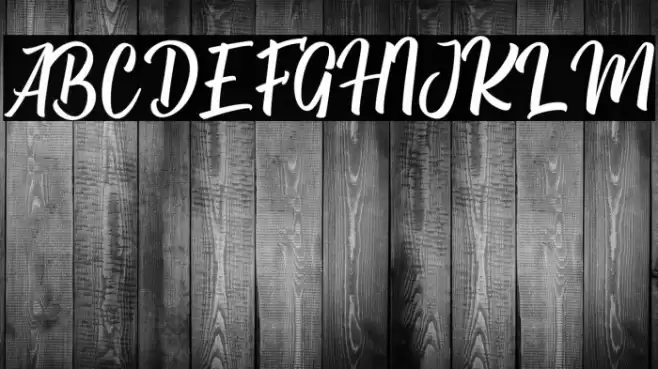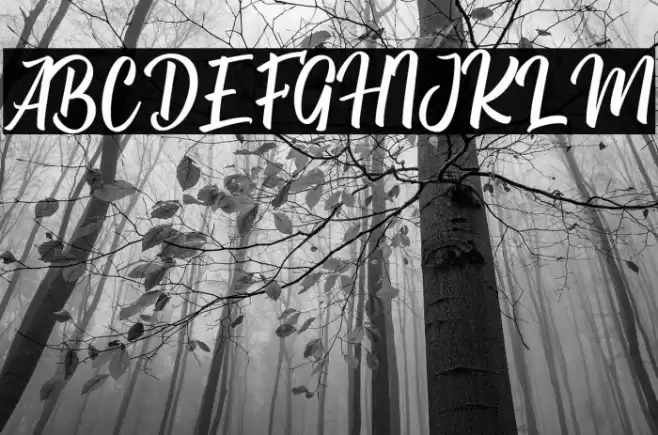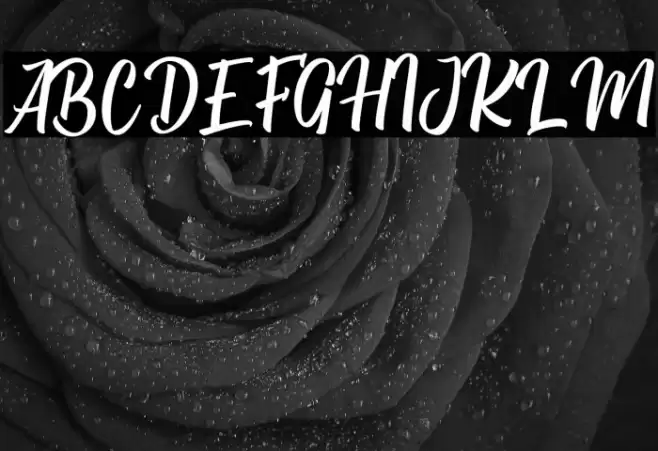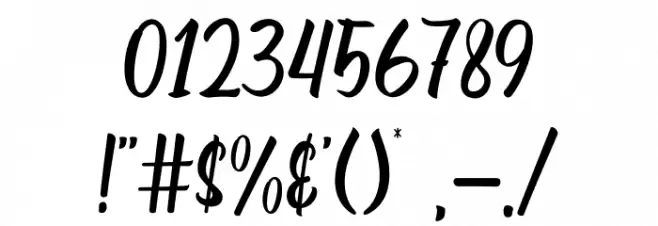
Berkah Ramadhan Font
Berkah Ramadhan Description
This font features a lively and flowing script style, characterized by its smooth, cursive strokes and elegant curves. The uppercase letters are bold and dynamic, with a slight slant that adds a sense of motion and grace. The lowercase letters maintain a consistent flow, connecting seamlessly in a way that enhances readability while preserving the artistic flair. Numbers and special characters are designed to match the overall aesthetic, with a playful yet sophisticated appearance. This font is perfect for projects that require a touch of elegance and personality, such as invitations, branding, and decorative designs.
A lively and elegant script font with smooth, cursive strokes from Uncategorized fonts.
- Proposed Projects: Ideal for invitations, branding, decorative designs, and elegant signage.
- Use Case: Logos, Invitations, Decorative text